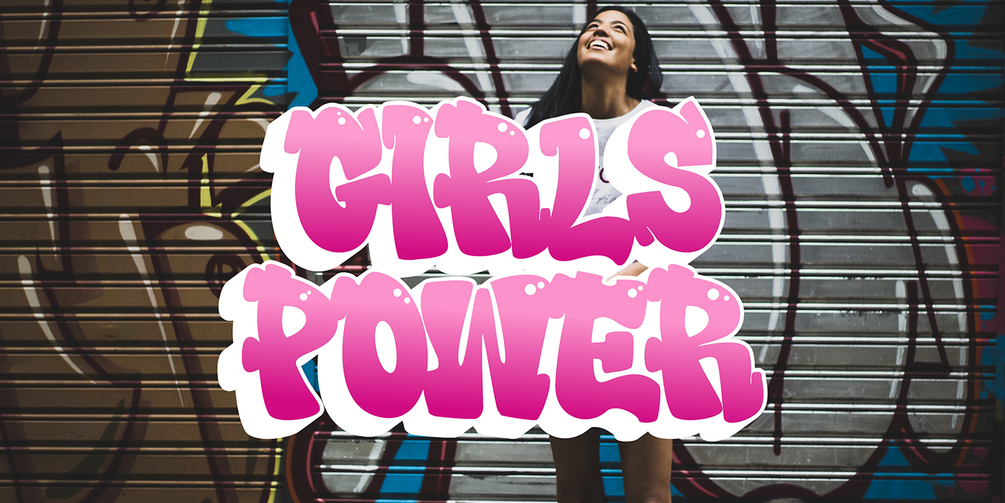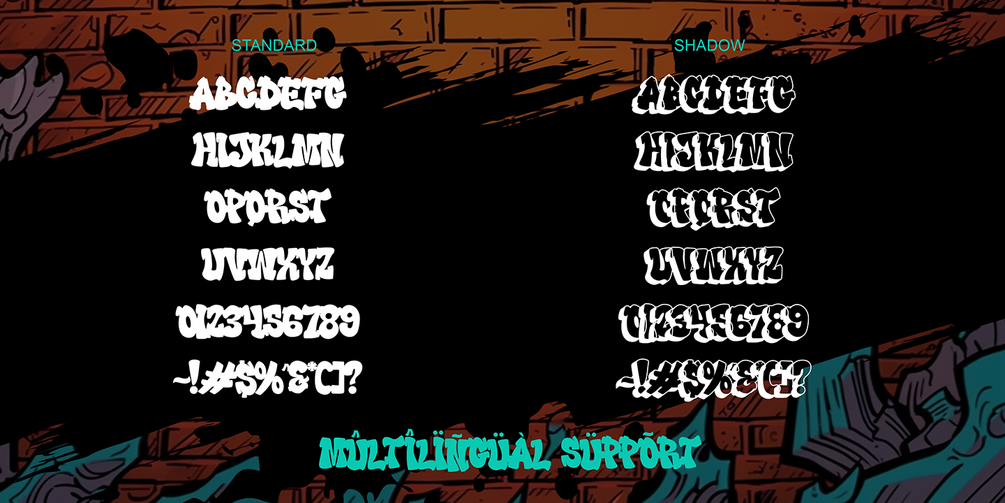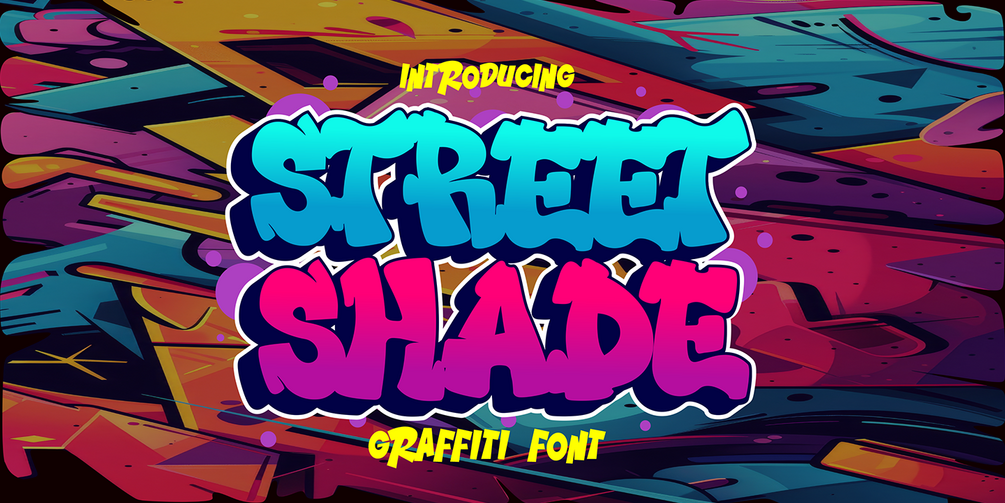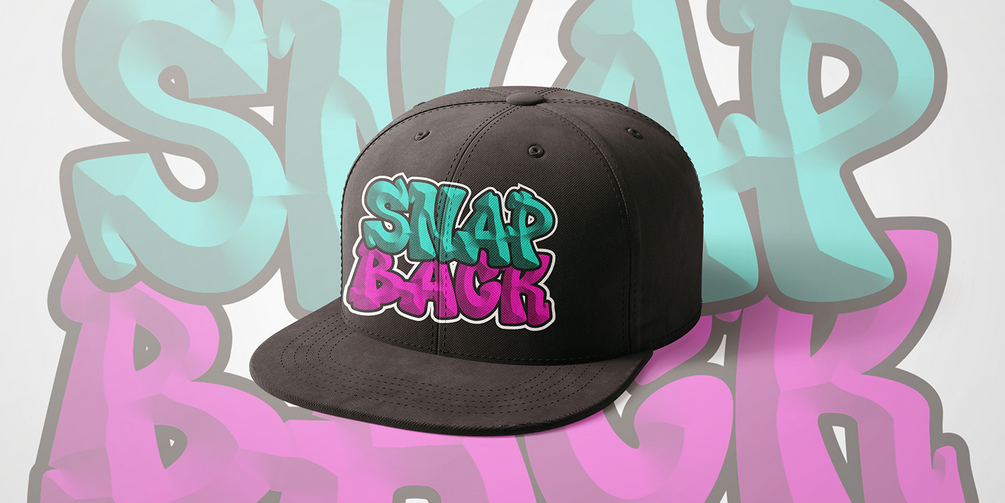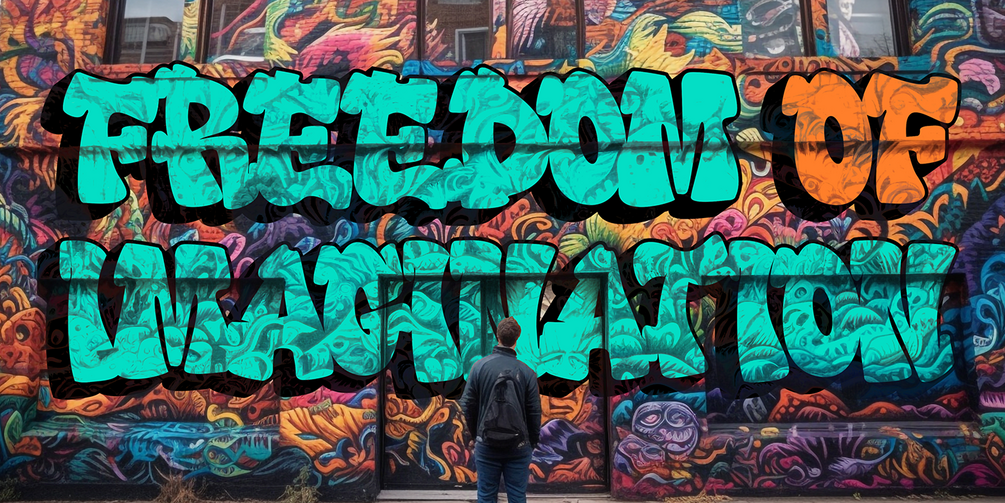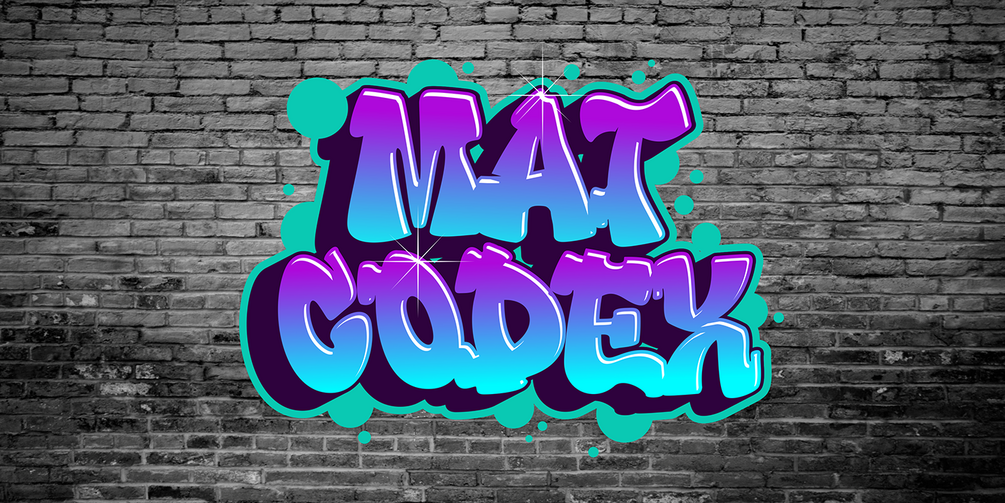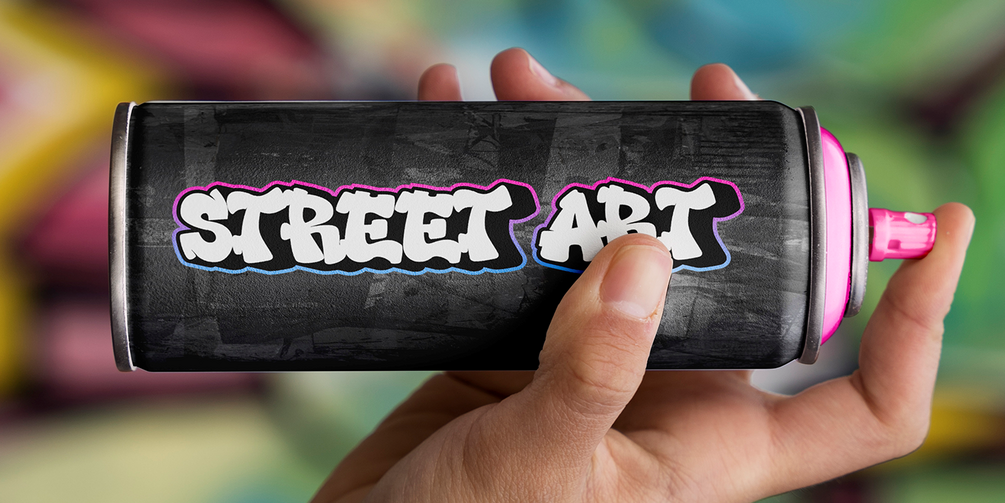
Street Shade | 3d Layered Graffiti Font | Instant Download for canva and procreate font
Street Shade is a bold and dynamic 3D layered graffiti font designed to bring an urban, street-style edge to your projects. Featuring two distinct styles—solid and hollow shadow, this font offers versatility for creating striking, high-impact designs. Its layered effect enhances the depth and dimension, making it perfect for bold typography with a graffiti-inspired attitude.
Ideal for streetwear branding, hip-hop posters, album covers, skate designs, stickers, and urban-themed projects, Street Shade captures the essence of street culture. Whether you're aiming for a raw, edgy aesthetic or a stylish urban vibe, this font delivers a strong visual presence that stands out in any design.
• Versatile for branding, headline, or printing product